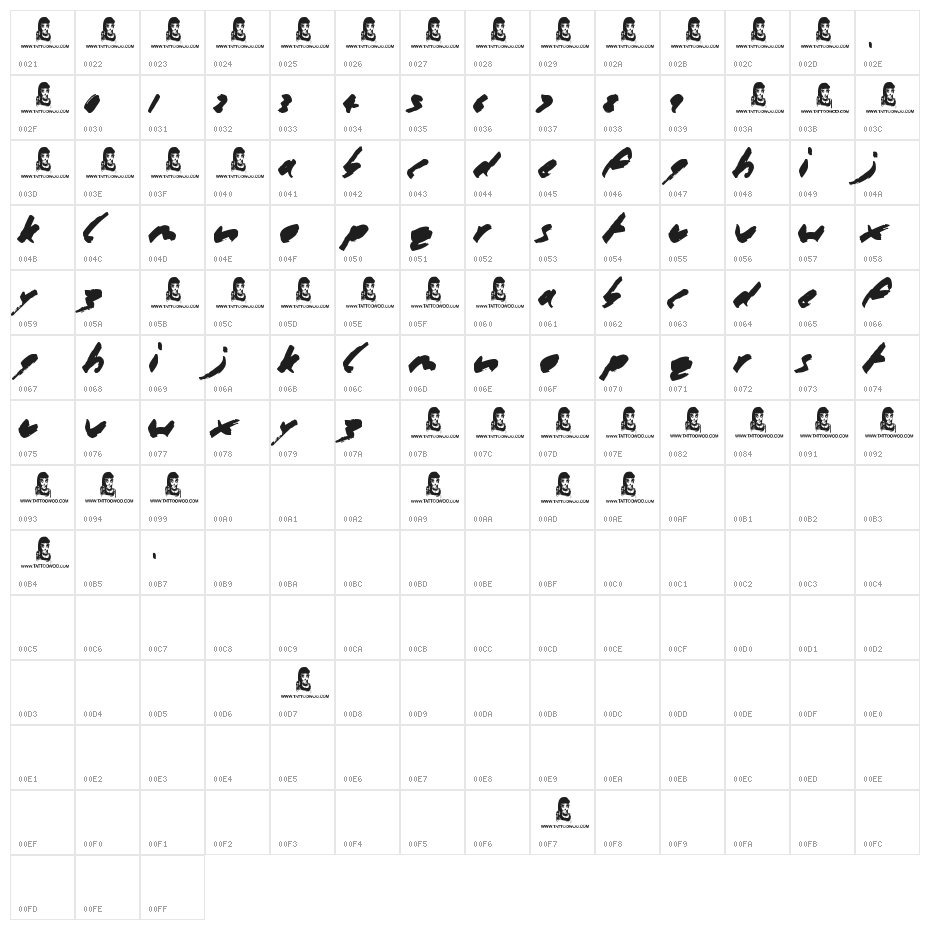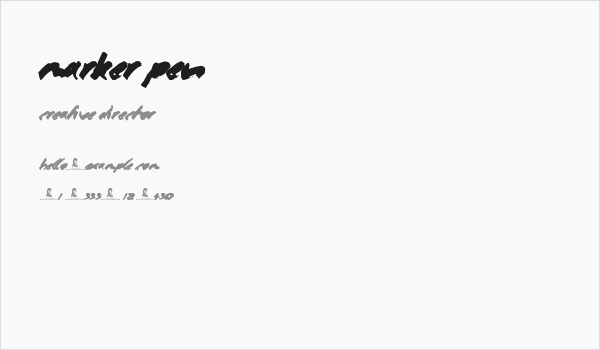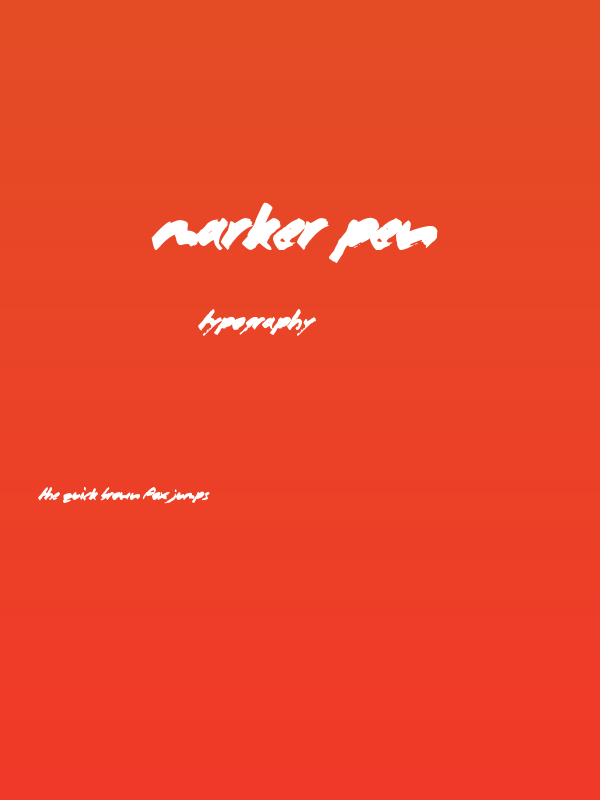
Marker Pen Font
| Anwendungsfall | Headlines, Logos, Artistic projects |
| Vorgeschlagene Projekte | Ideal for posters, artistic projects, branding, and any design requiring a bold, personal touch. |